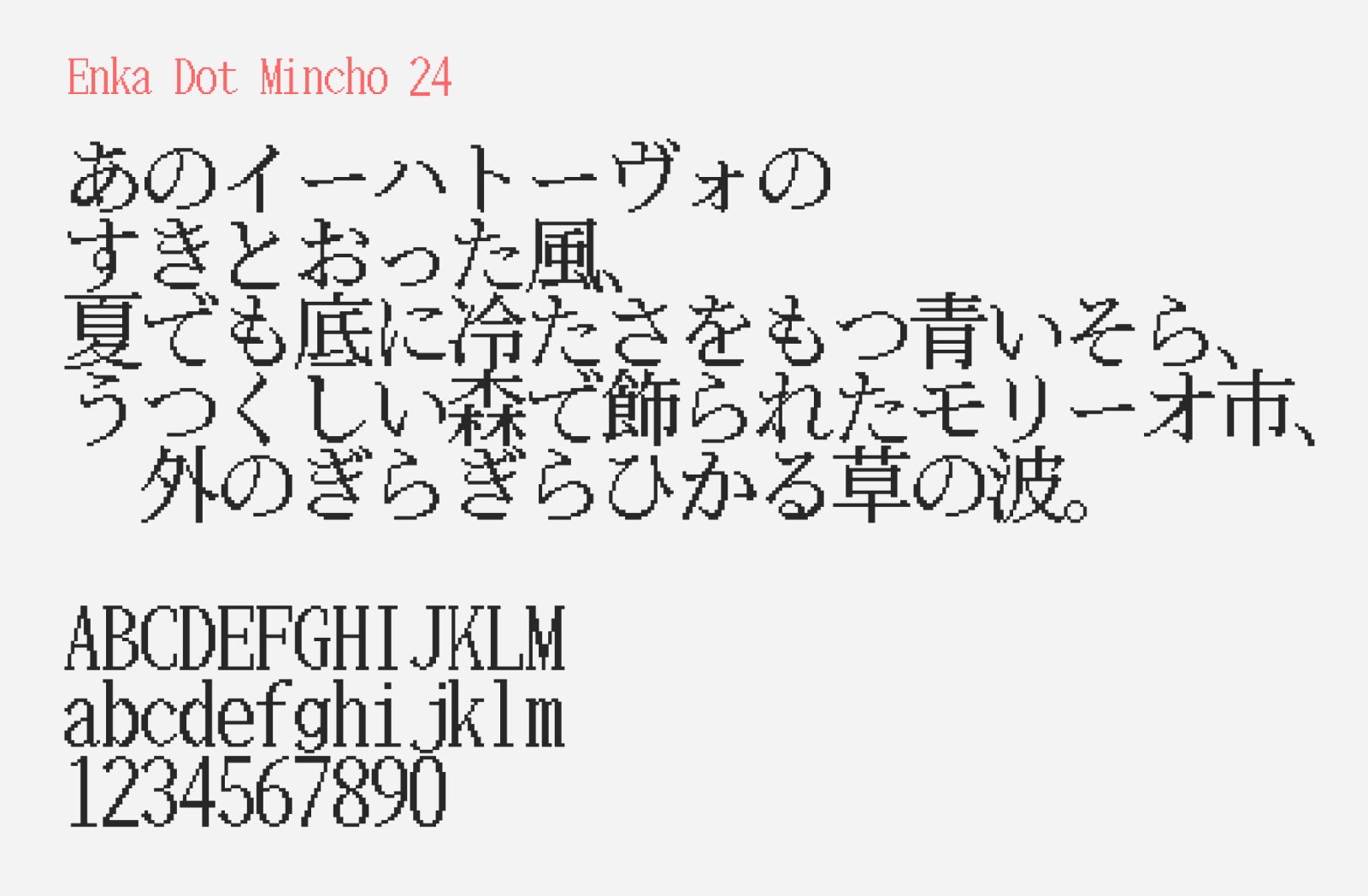
Enka Dot Mincho 24
Enka Dot Mincho 24 (縁架ドット明朝24) is a free 24-dot pixel mincho font hand-crafted by Enthiesia (エンゼシア), the same independent Japanese font designer behind Enka Dot Gothic 24. This time, the glyph designs are based on Noto Serif, redrawn pixel by pixel at 24-dot resolution to deliver that classic, characterful bitmap mincho look. The seriffed strokes of the mincho style give this pixel font a slightly more traditional and literary feel compared to its gothic sibling, while retaining that retro digital charm. Use it to evoke old-school Japanese digital displays, add a nostalgic flavour to your game UI, or recreate the kind of text you might find on vintage electronic signage. Note that vertical writing is not supported.
Enka Dot Mincho 24 comes with the common Japanese characters, including full kyōiku kanji characters support, totaling about 1,082 kanji characters as of time of writing. Not fantastic in terms of kanji character support, but it should cover most basic uses. It is free to download and be used on commercial projects, as it was released under SIL Open Font License.
- Hiragana and Katakana
- Kanji (Education Kanji / Kyōiku Kanji 1,026 characters + additional, totalling 1,082 kanji)
- Alphanumerics
- Latin scripts
- Symbols and Punctuations